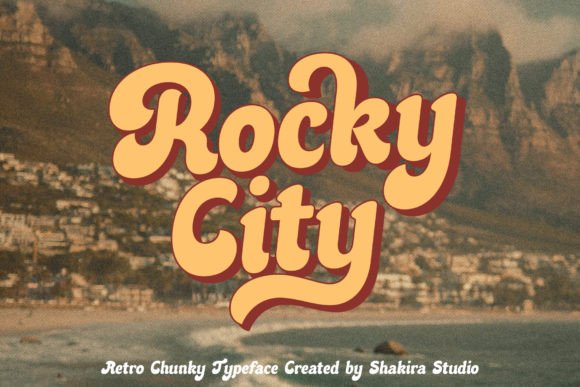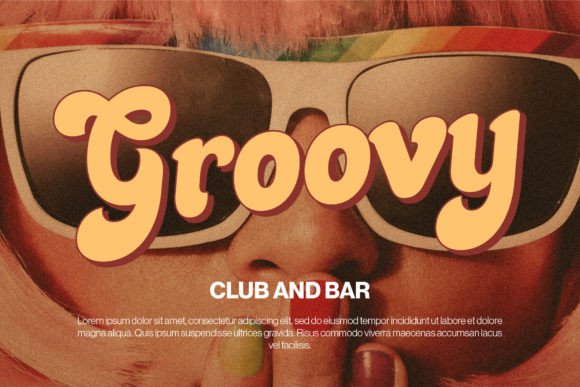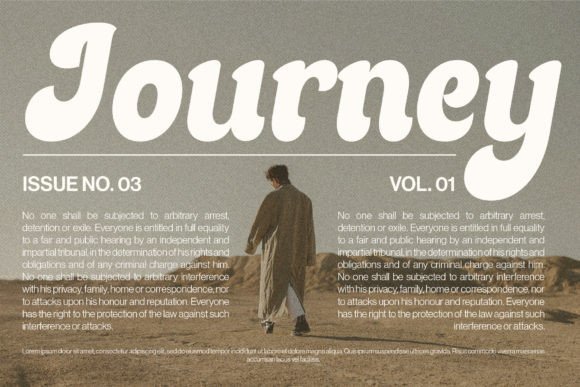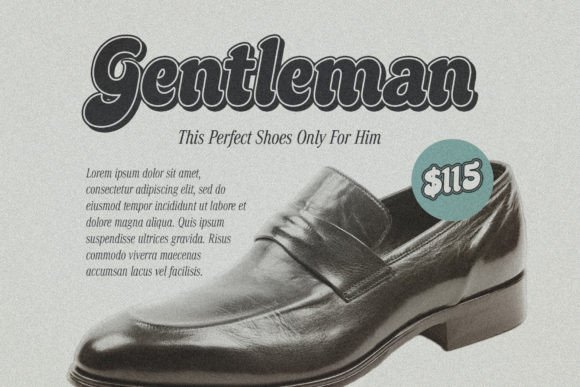
Rocky City Font: A Bold Retro Display Font for Eye-Catching Design
About the Rocky City Font
Meet Rocky City Font, a stunning font that brings a touch of elegance and professionalism to any design. Rocky City is not just a font; it’s a powerful throwback to vintage design with a modern edge. Perfectly capturing the essence of retro fonts and typography trends, Rocky City is crafted to make a bold impression. With its thick, chunky serif characters and unique alternates and ligatures, Rocky City adds a distinctive and robust flair to any project. Whether you’re designing standout logos, eye-catching posters, or dynamic branding materials, Rocky City ensures your work stands out with style and strength.
Rocky City Font Usage Examples
Rocky City Font Example